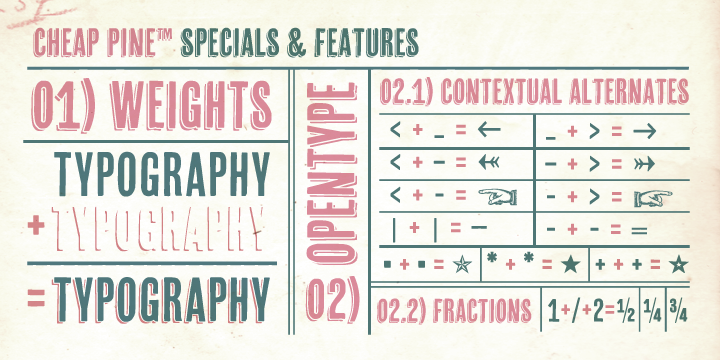
Cheap Pine
A condensed wood type with its own shadow effect.
Cheap Pine is a simple one weight typeface in upper case. It is a roughly drawn, condensed font and has a printed hand made appearance. Cheap Pine is a tribute to the wood type of the eighteenth century and nineteenth century. You can use Cheap Pine Sans & Cheap Pine Shadow together to influence the color of the shadows. The font contains arrows, hands, stars and other special glyphs available through the OpenType ligatures feature.
Cheap Pine is an all caps font with two versions of each letter.